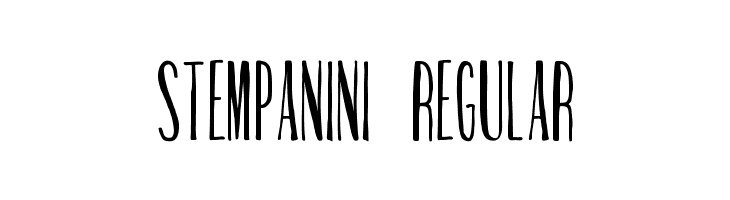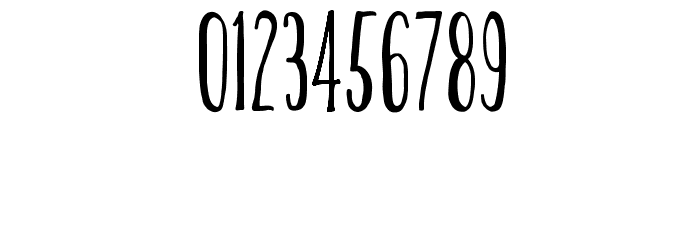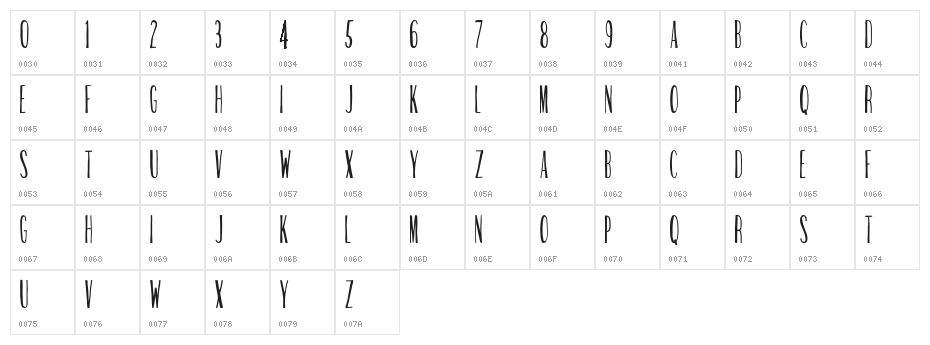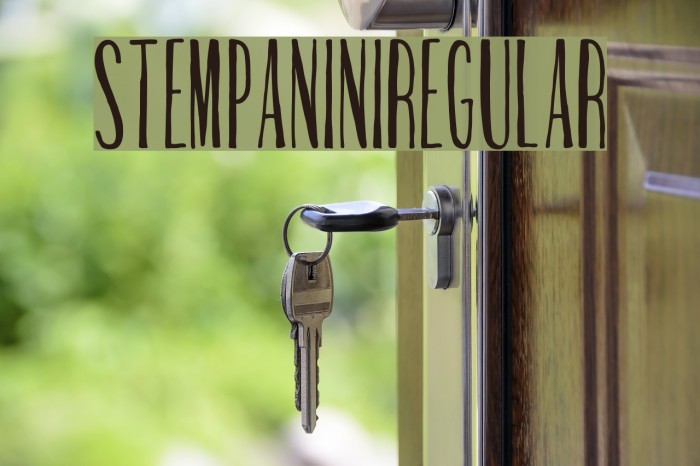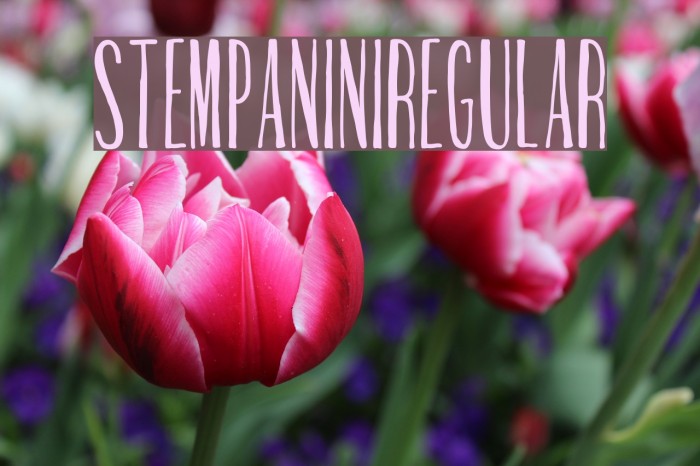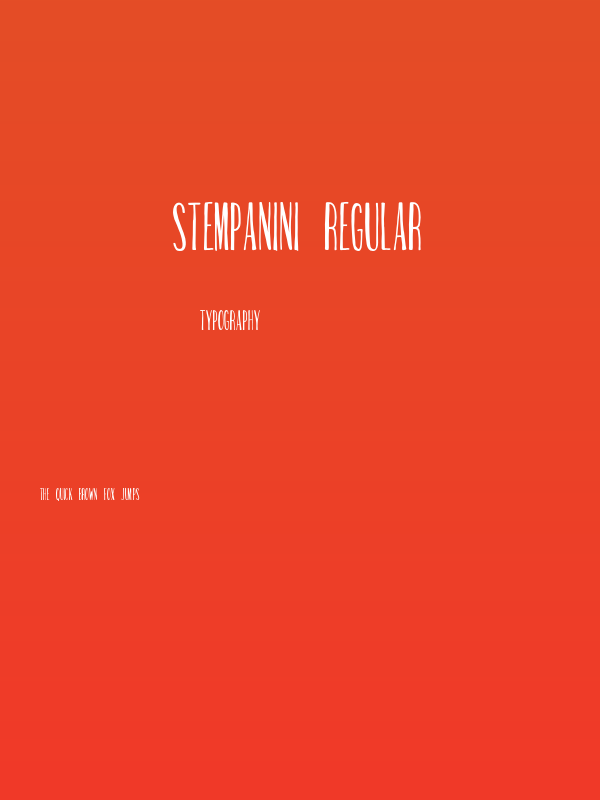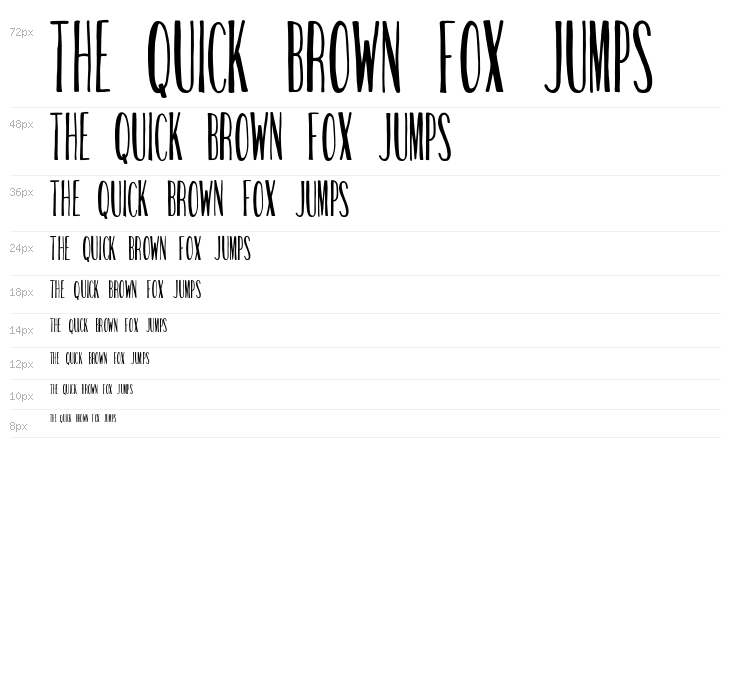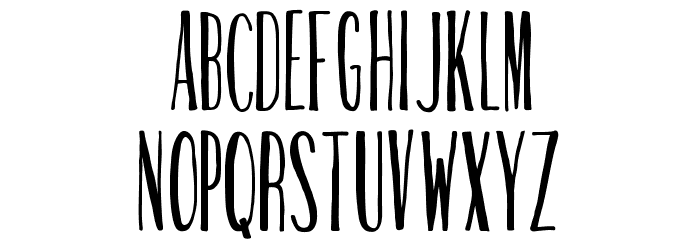
StemPanini-Regular Font
StemPanini-Regular Description
This font features a tall, narrow design with a hand-drawn aesthetic, giving it a unique and artistic appearance. The characters are elongated with a slight irregularity in stroke width, adding to its handcrafted feel. The uppercase and lowercase letters maintain a consistent style, with the uppercase being slightly more prominent. The numerals are equally stylized, matching the overall aesthetic of the alphabet. This font's distinctive look makes it suitable for creative and informal projects, where a touch of personality is desired.
| Overall Style | Artistic, Handcrafted |
| Proposed Projects | Ideal for posters, artistic projects, branding, and any design requiring a creative touch. |